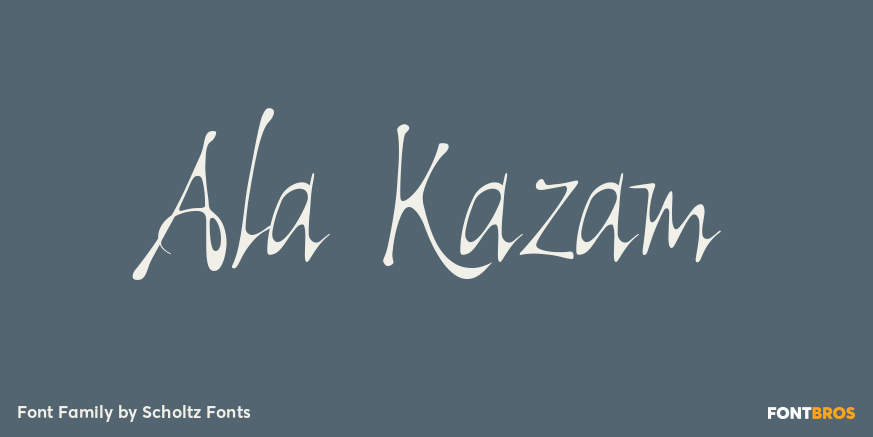
Ala Kazam
About Ala Kazam
Ala Kazam is a new take on Calligraphic fonts. It has all the drama and pen-like quality of the calligraphy genre, but presents as a casual, quirky, magical font. Ala Kazam evokes many moods – it\’s fun, it\’s sophisticated, it\’s fashionable, it\’s contemporary…